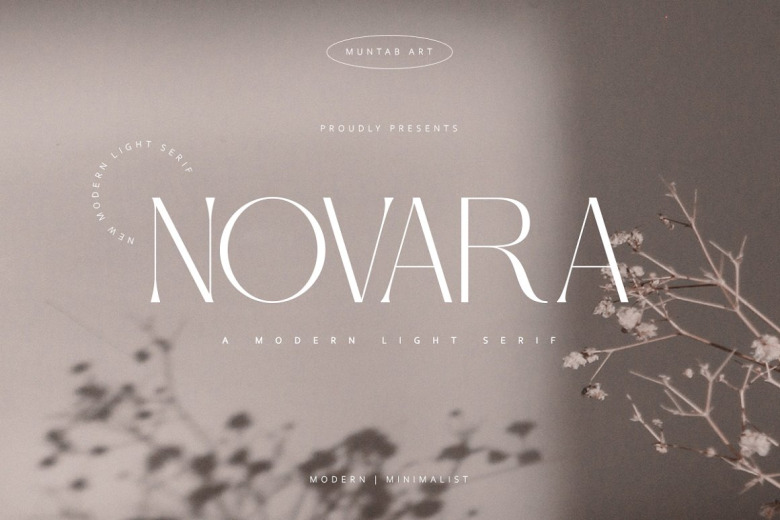
Novara Font
Novara Serif Fonts includes uppercase letters, numerals, a large range of punctuation. Serif font with modern stylish style. Created for poster, web design, branding, illustrations, badges and some other works.
Novara Modern Serif Font